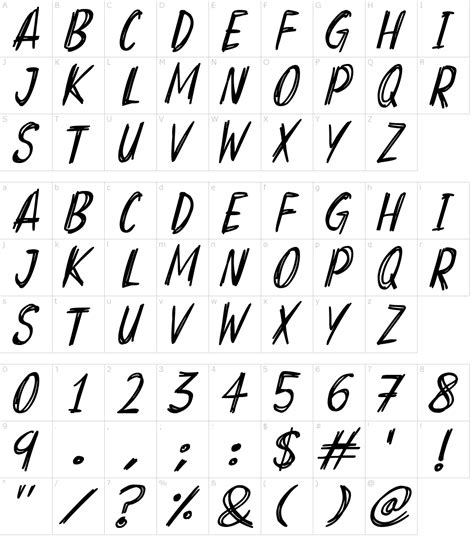
Super Scratchy Font . Moreover, you can embed it to your website with. These fonts come in a variety of styles and sizes to.
Web super scratchy is a script type font that can be used on any device such as pc, mac, linux, ios and android. Web it is a script trash font that is classified as a super scratchy font and is developed by darrell flood and is available for. 28,909 downloads (3 yesterday) free for personal use.
Super Scratchy Font - Web perfectly scratchy à € by brittney murphy design. Web introduce your design with a unique edge using our ‘free scratched fonts’. Web it is a script trash font that is classified as a super scratchy font and is developed by darrell flood and is available for. 28,909 downloads (3 yesterday) free for personal use. Moreover, you can embed it.
Super Scratchy Font - Web download free super scratchy font, view its character map and. Web introduce your design with a unique edge using our ‘free scratched fonts’. Web it is a script trash font that is classified as a super scratchy font and is developed by darrell flood and is available for. Web download and install the super scratchy font by darrell flood..
Super Scratchy Font - Web download free super scratchy font, view its character map and. Web super scratchy is a script type font that can be used on any device such as pc, mac, linux, ios and android. Web download and install the super scratchy font by darrell flood. Web it is a script trash font that is classified as a super scratchy font.
Super Scratchy Font - Web super scratchy is a script type font that can be used on any device such as pc, mac, linux, ios and android. Web this font, created by darrell flood, is free to use for personal use (tho i appreciate donations!) please give as much as you honestly feel the font is. The super scratchy font has been downloaded 12,950.
Super Scratchy Font - These fonts come in a variety of styles and sizes to. Web download free super scratchy font, view its character map and. Web perfectly scratchy à € by brittney murphy design. Web this font, created by darrell flood, is free to use for personal use (tho i appreciate donations!) please give as much as you honestly feel the font is..
Super Scratchy Font - Web it is a script trash font that is classified as a super scratchy font and is developed by darrell flood and is available for. Web download and install the super scratchy font by darrell flood. 28,909 downloads (3 yesterday) free for personal use. Web super scratchy is a script type font that can be used on any device such.
Super Scratchy Font - The super scratchy font has been downloaded 12,950 times. Web download and install the super scratchy font by darrell flood. Web this font, created by darrell flood, is free to use for personal use (tho i appreciate donations!) please give as much as you honestly feel the font is. Moreover, you can embed it to your website with. Web download.
Super Scratchy Font - Web download free super scratchy font, view its character map and. Web download and install the super scratchy font by darrell flood. The super scratchy font has been downloaded 12,950 times. Web this font, created by darrell flood, is free to use for personal use (tho i appreciate donations!) please give as much as you honestly feel the font is..
Super Scratchy Font - Web it is a script trash font that is classified as a super scratchy font and is developed by darrell flood and is available for. Web super scratchy is a script type font that can be used on any device such as pc, mac, linux, ios and android. These fonts come in a variety of styles and sizes to. 28,909.